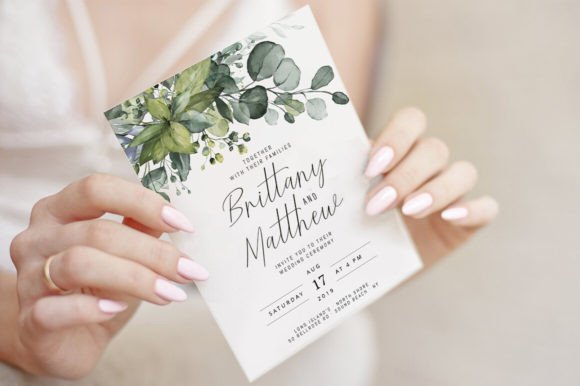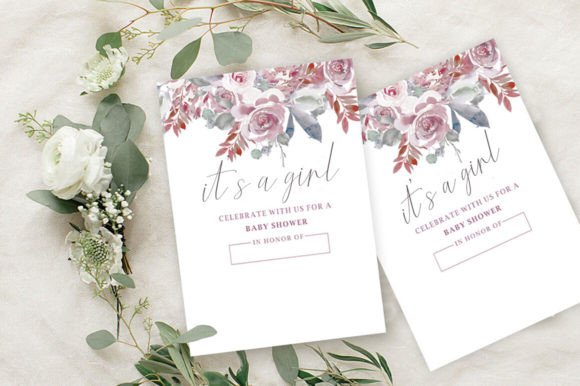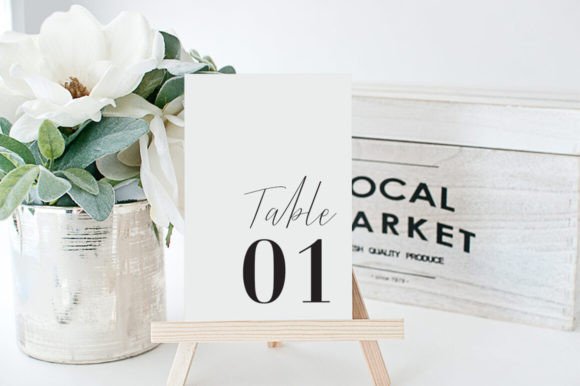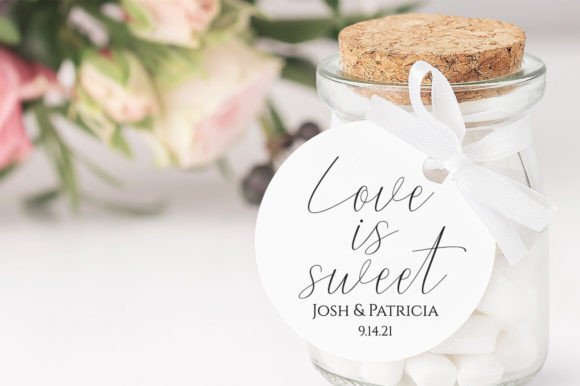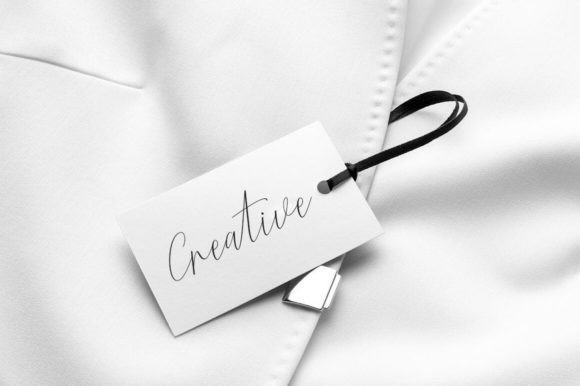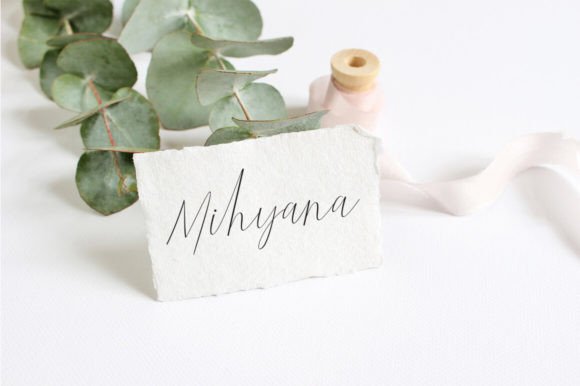
Introduction to Megastina Font
Have you ever been working on a creative project, pouring your heart and soul into it, only to feel like something is missing? That’s when the perfect design resource can make all the difference. Today, we’re excited to introduce you to the Megastina Font, a game-changing typeface that will elevate your designs to the next level.
With its unique blend of natural and fresh handwritten style, the Megastina Font is the perfect addition to any design project. Whether you’re working on a branding campaign or creating a logo, this versatile font is sure to give your designs a special touch. And the best part? It’s available for free download, making it an accessible and valuable resource for designers of all levels.
Key Features of Megastina Font
- Unique, modern aesthetic with a blend of sleek lines and elegant typography, making it an excellent choice for branding and identity design.
Honest Review: Megastina Font
As a designer, I’m always on the lookout for high-quality design resources to elevate my creative projects. The Megastina Font caught my attention with its unique, elegant style.
- ✨ Its high-quality design makes it perfect for a variety of creative projects, from branding to web design.
- ⚠️ The font may not be suitable for use in print materials due to its relatively low legibility in smaller sizes.
- ⚠️ Some users may find the font’s elegance to be too minimalist, limiting its versatility in certain design contexts.
Overall, the Megastina Font is a solid addition to any designer’s toolkit. While it may have some limitations, its unique style and high-quality design make it a valuable resource for creative projects.
To get the most out of Megastina Font, use it in combination with other design elements, such as graphics and images. Experiment with different font sizes and styles to create visually appealing designs. You can also use Megastina Font in conjunction with other design resources to create a cohesive and professional look.
Megastina Font is a versatile font that can be used in a variety of creative projects, including graphic design, web design, and print design. It’s a great choice for creating logos, business cards, and other marketing materials. You can also use Megastina Font to create eye-catching social media graphics and presentations.